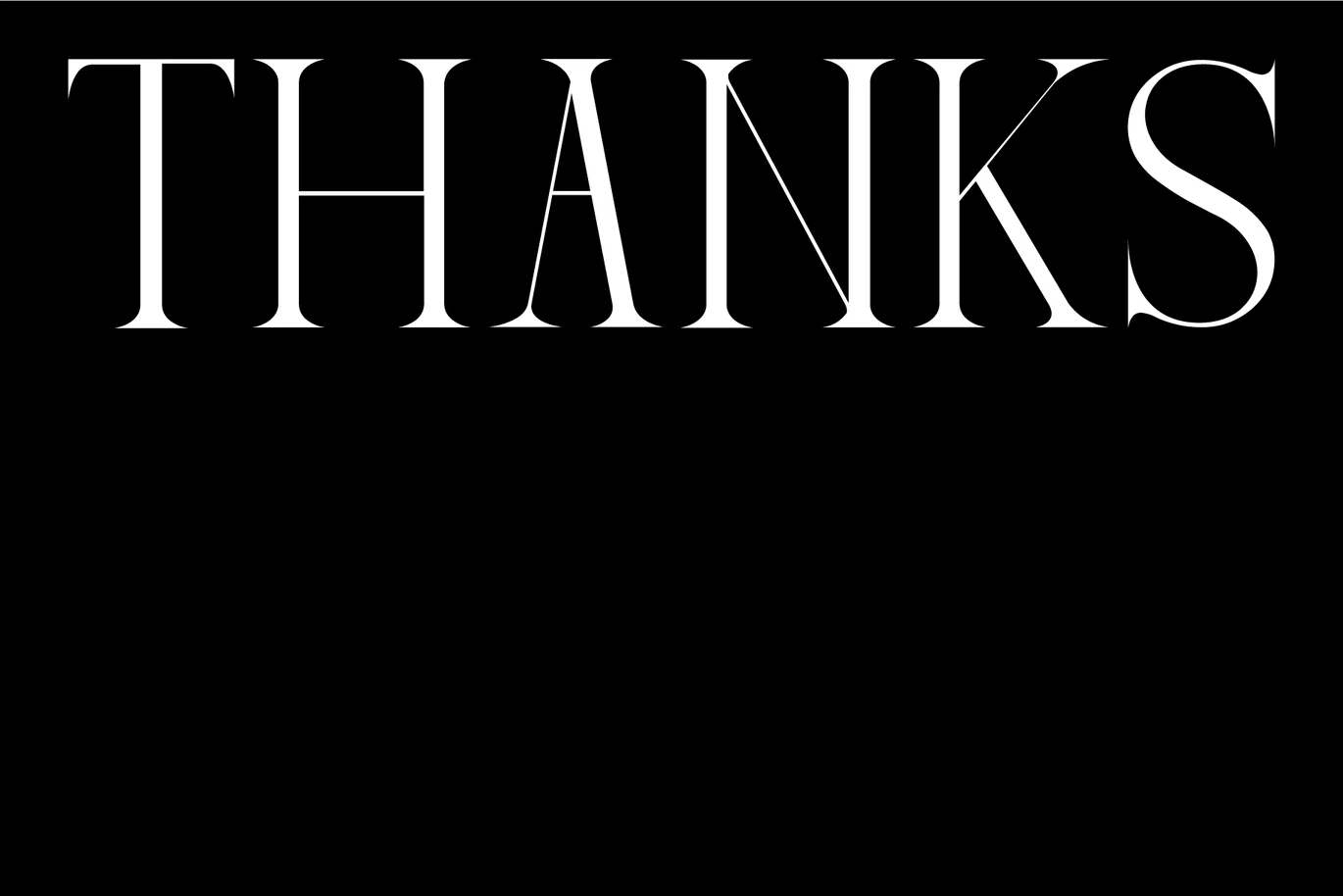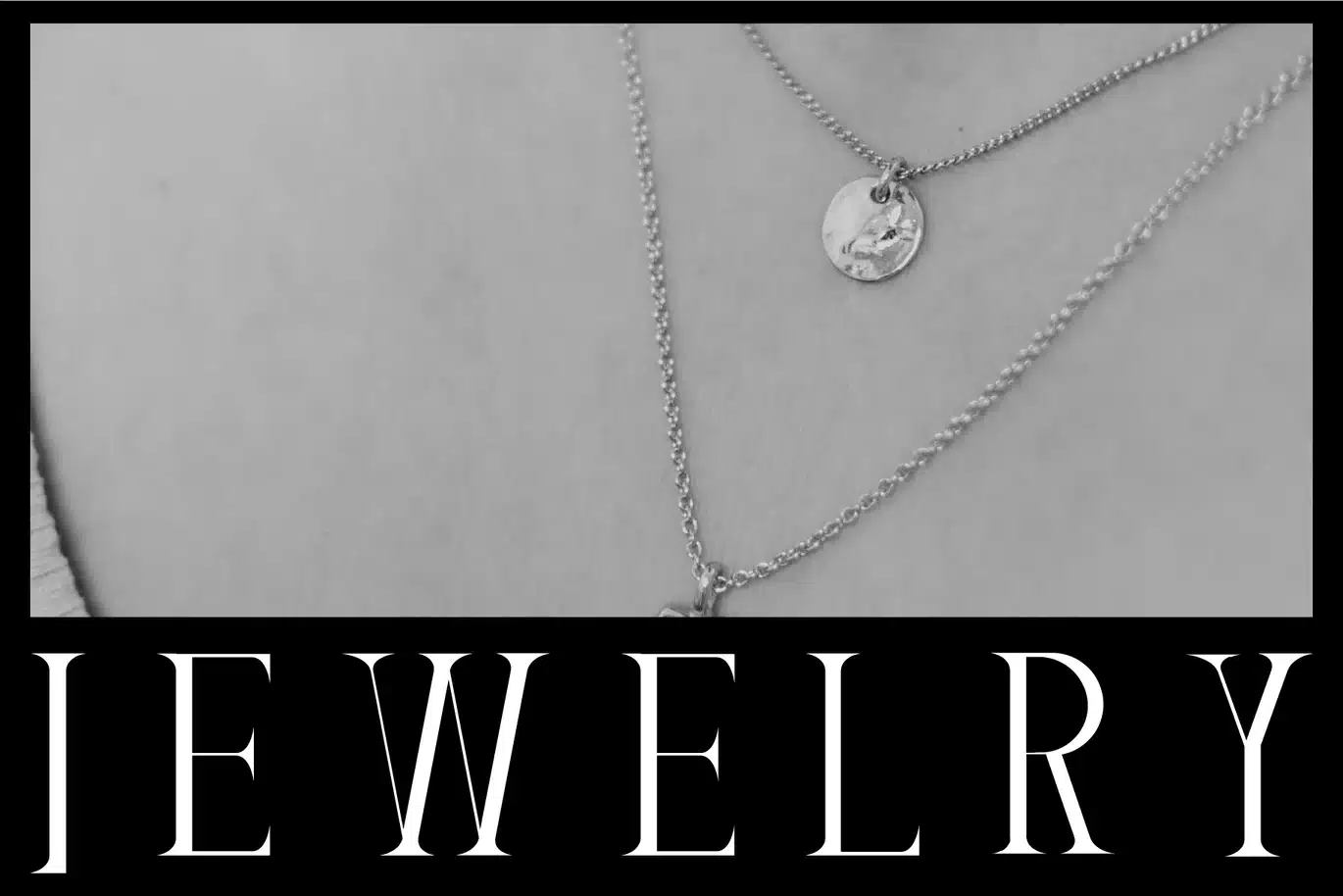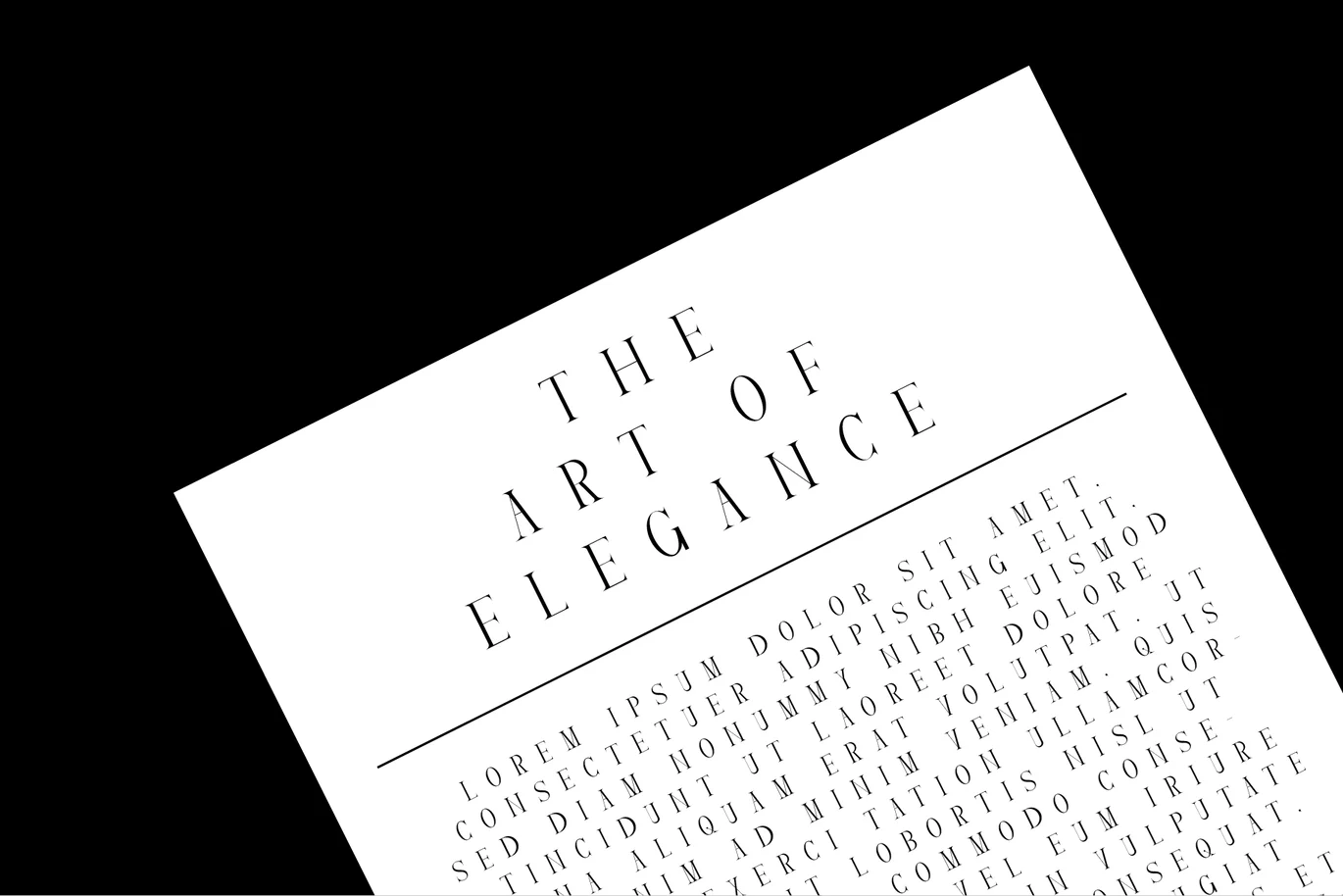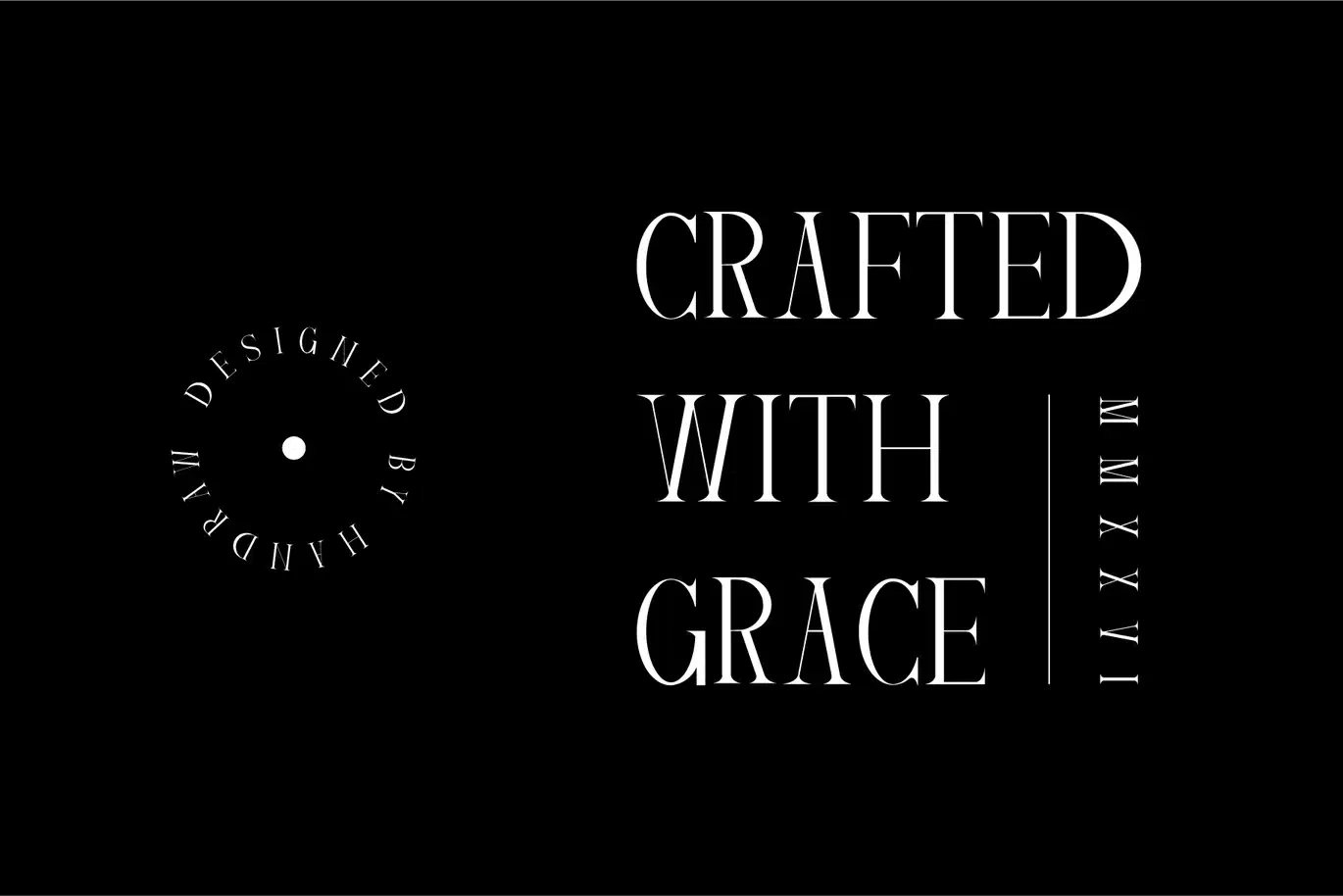
Morves – Modern Serif Font
Morves is a refined serif typeface that blends classic elegance with modern clarity. Designed with balanced proportions and sharp, well-defined serifs, Morves delivers a timeless aesthetic that feels both sophisticated and approachable.